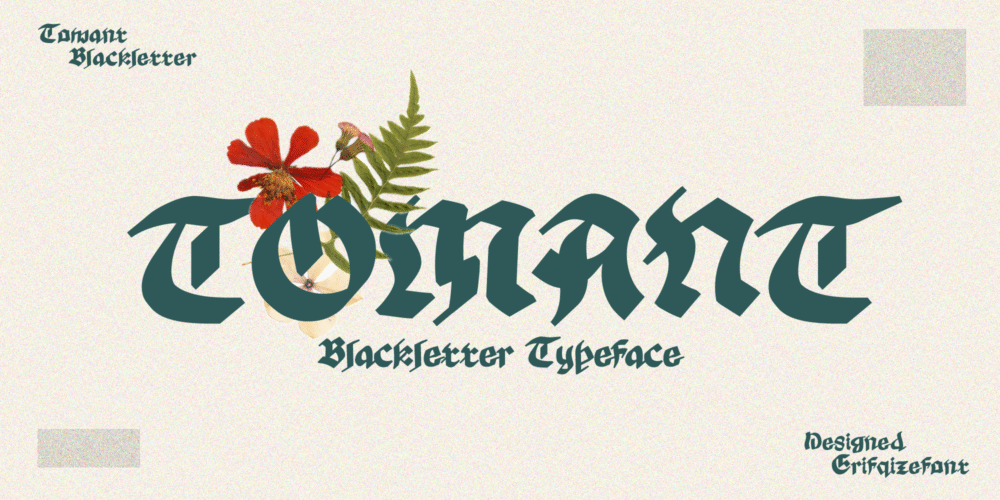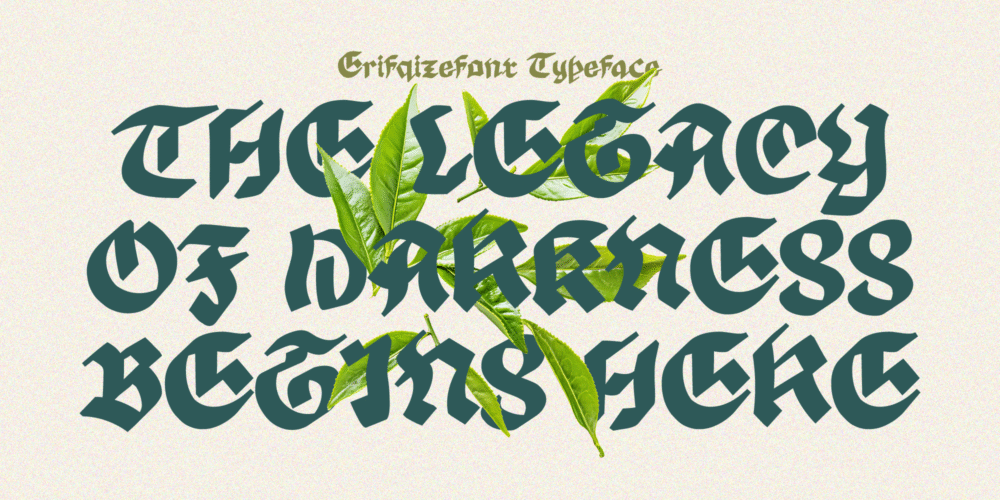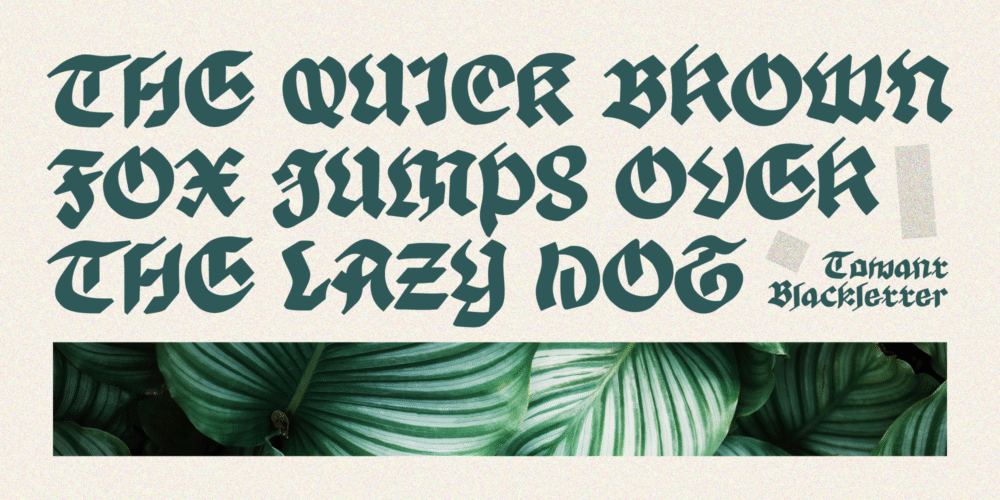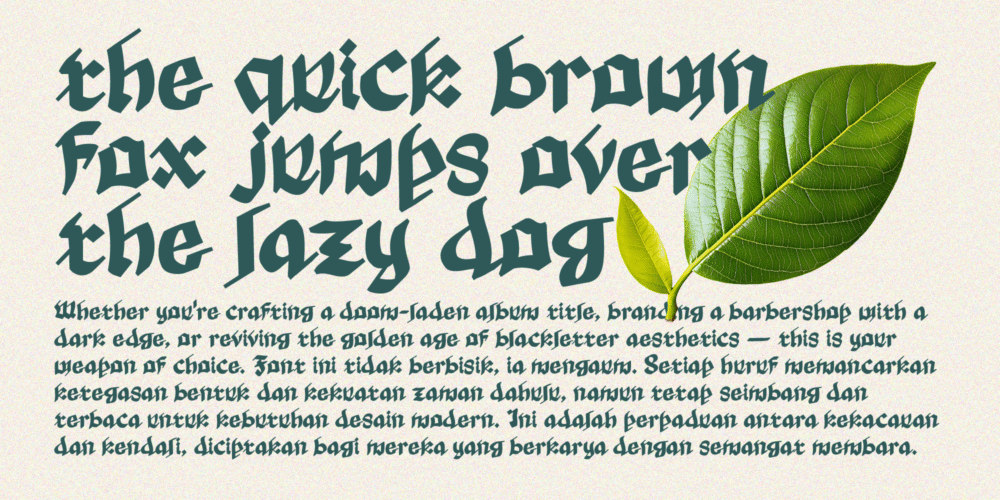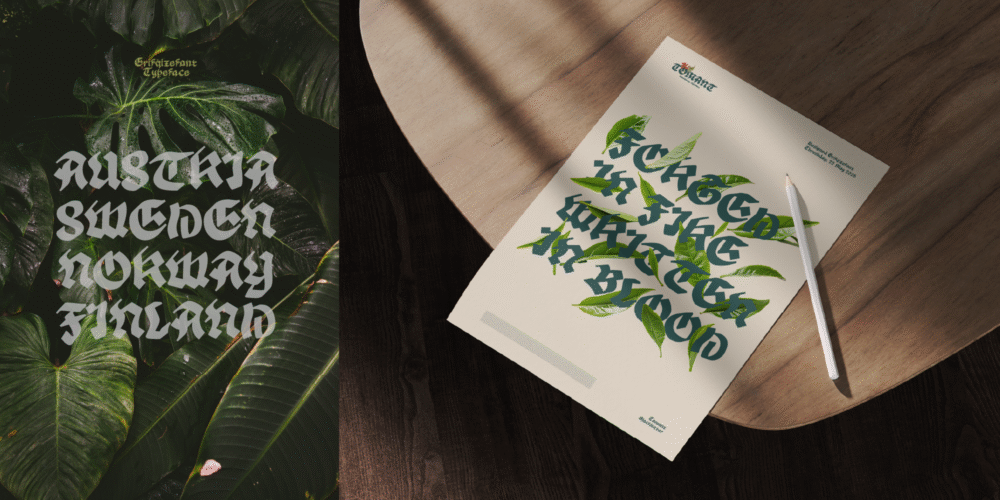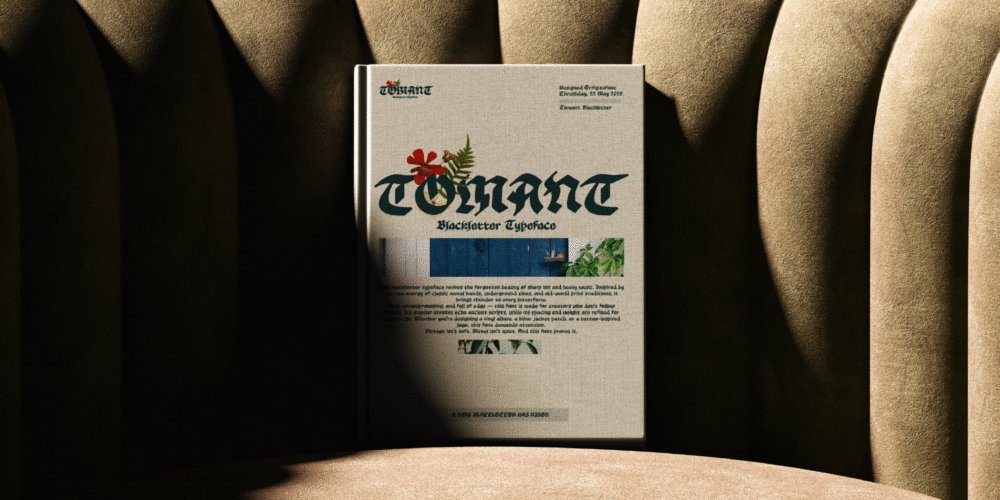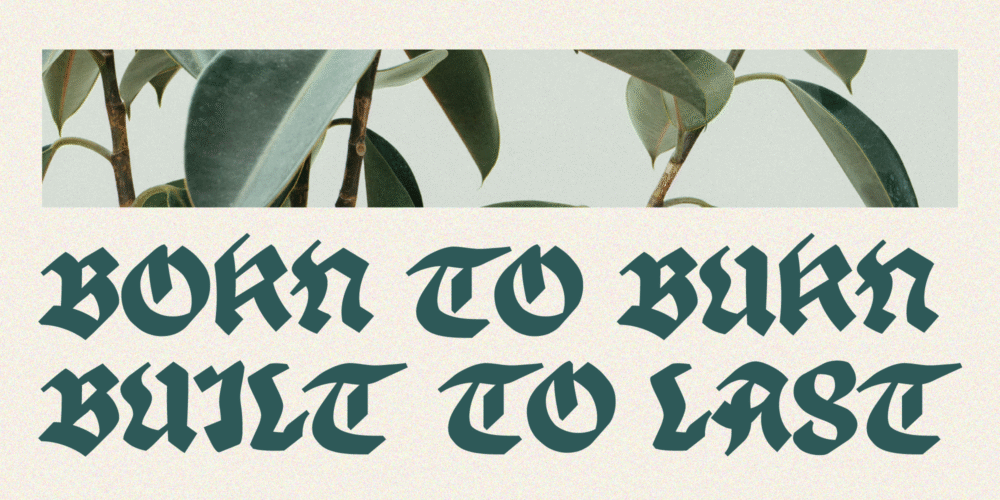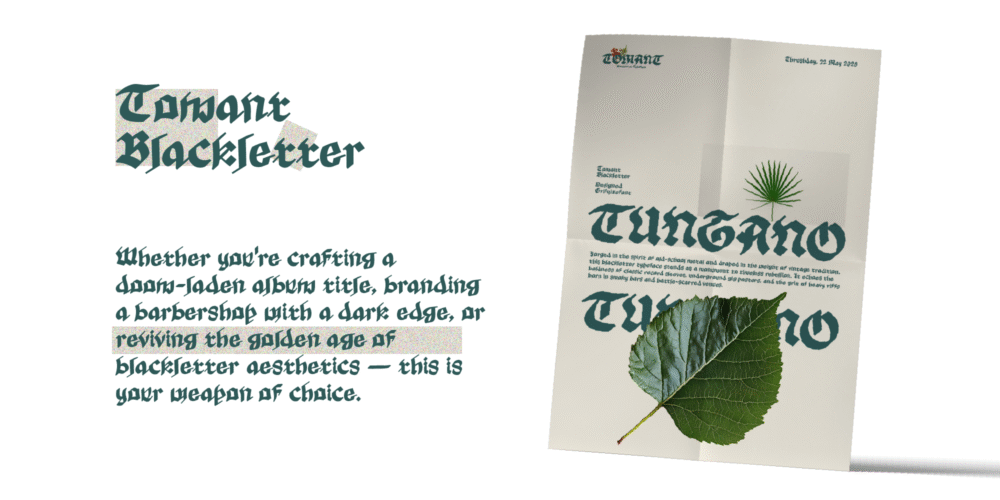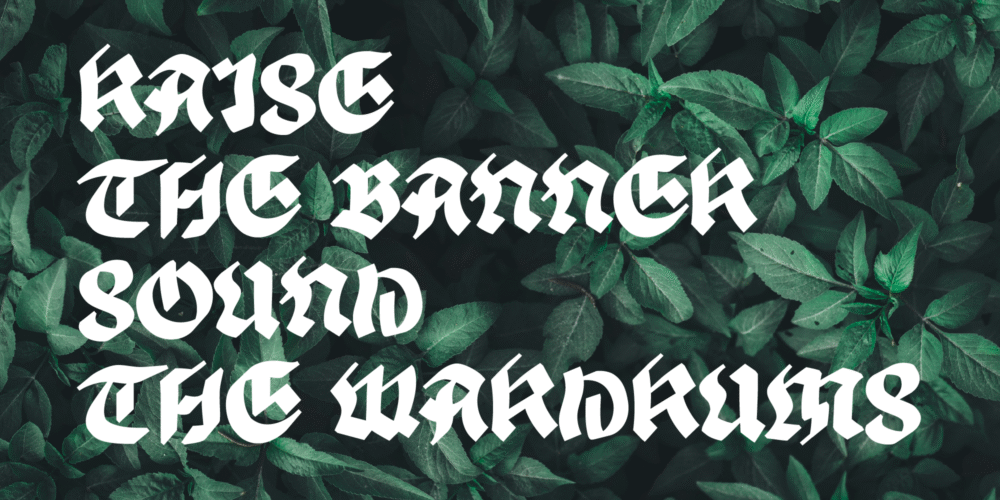
Tomant Blackletter — Elegance in Darkness
Tomant Blackletter is a striking display typeface that blends the boldness of medieval letterforms with a touch of natural elegance. Designed by Erifqizefont, it brings together the sharp, angular presence of traditional blackletter with an unexpected softness — reflected through the floral accents featured in its presentation.
Each glyph is crafted with strong structure and classic rhythm, yet retains a sense of modern refinement. It’s the perfect typeface for projects that seek both drama and beauty — from vintage metal posters to contemporary gothic branding.
Tomant doesn’t just speak — it commands. It’s blackletter with soul, built for those who design with conviction.
Authentic blackletter forms with modern balance
Strong contrast, bold personality
Ideal for headlines, logos, and artistic branding
Floral/nature theme adds a refined softness
Vintage metal or folk album covers
Tattoo-inspired apparel or logos
Gothic editorial layouts
Branding with an old-world yet artistic flair